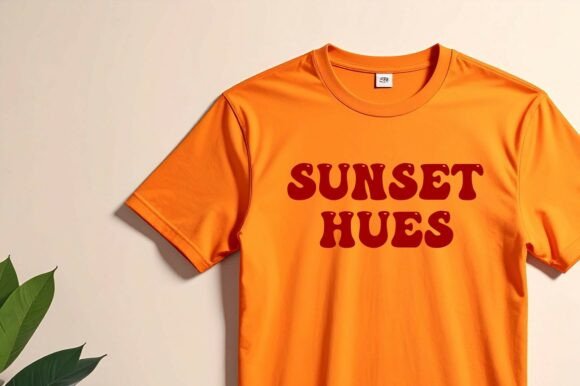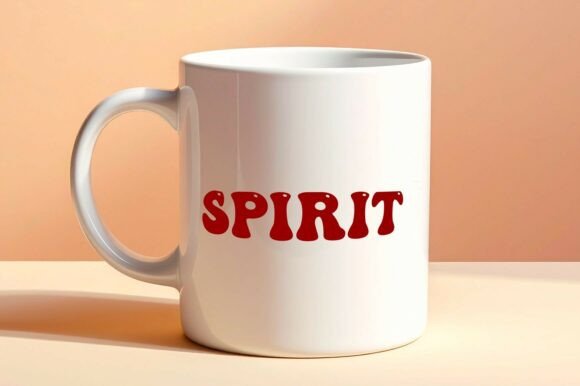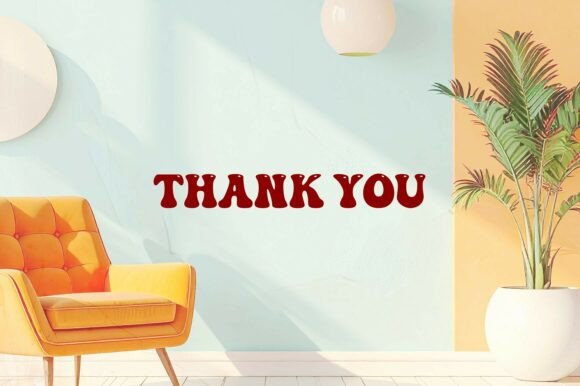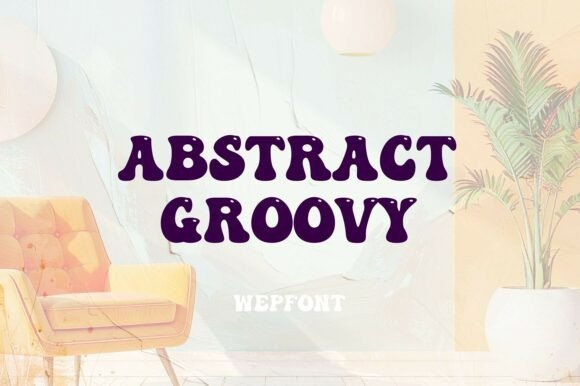
Get Ready to Groove with Your Designs
Have you ever stared at a blank canvas, trying to come up with the perfect font to capture the essence of your creative project? Maybe you’re designing a festival poster, or creating a new brand identity for a vintage-inspired clothing line. Whatever your project, we know that the right font can make all the difference.
That’s where the Abstract Groovy Font comes in – a playful and authentic display font that’s designed to add a touch of nostalgic fun to any project. With its bold, rounded letterforms, it’s the perfect choice for creatives who want to infuse their work with a unique retro vibe. Whether you’re a seasoned graphic artist or just starting out, the Abstract Groovy Font is a valuable tool to have in your design arsenal.
Abstract Groovy Font Key Features
- Unique Characteristics: The font’s abstract, hand-drawn style gives it a distinctive and creative feel, perfect for projects that require a unique visual identity.
Designer Review: Abstract Groovy Font
Overall, I’d say Abstract Groovy Font is a wild ride. It’s definitely not for everyone, but for the right project, it can be a real showstopper. ✨
The font’s unique blend of abstract shapes and groovy vibes really does make it stand out from the crowd. I love how it adds a touch of personality to any text. The varied letterforms and creative flourishes make it perfect for designing eye-catching headlines and titles. ✨
Limits and Challenges
Of course, with great power comes great limitations. ⚠️ Here are a few things to consider:
Readability: At small font sizes, some of the letterforms can get lost in the abstract shapes, making it difficult to read.
Consistency: The font’s quirky nature can be both a blessing and a curse. While it adds personality, it can also be inconsistent in certain contexts.
Paired fonts: Finding a suitable font to pair with Abstract Groovy can be a challenge, as it’s quite a statement piece.
Overall, I think Abstract Groovy Font is a great choice for designers who want to add some visual flair to their projects. Just be aware of its limitations and use it wisely. ✨
Abstract Groovy Font Practical Application Guide
To get the most out of Abstract Groovy Font, use it in conjunction with bold colors and abstract shapes to create eye-catching designs.
Experiment with different font sizes and styles to add depth and interest to your designs.
Abstract Groovy Font is ideal for:
- Music festival or concert posters
- Artistic or creative resumes
- Music or art-inspired social media graphics